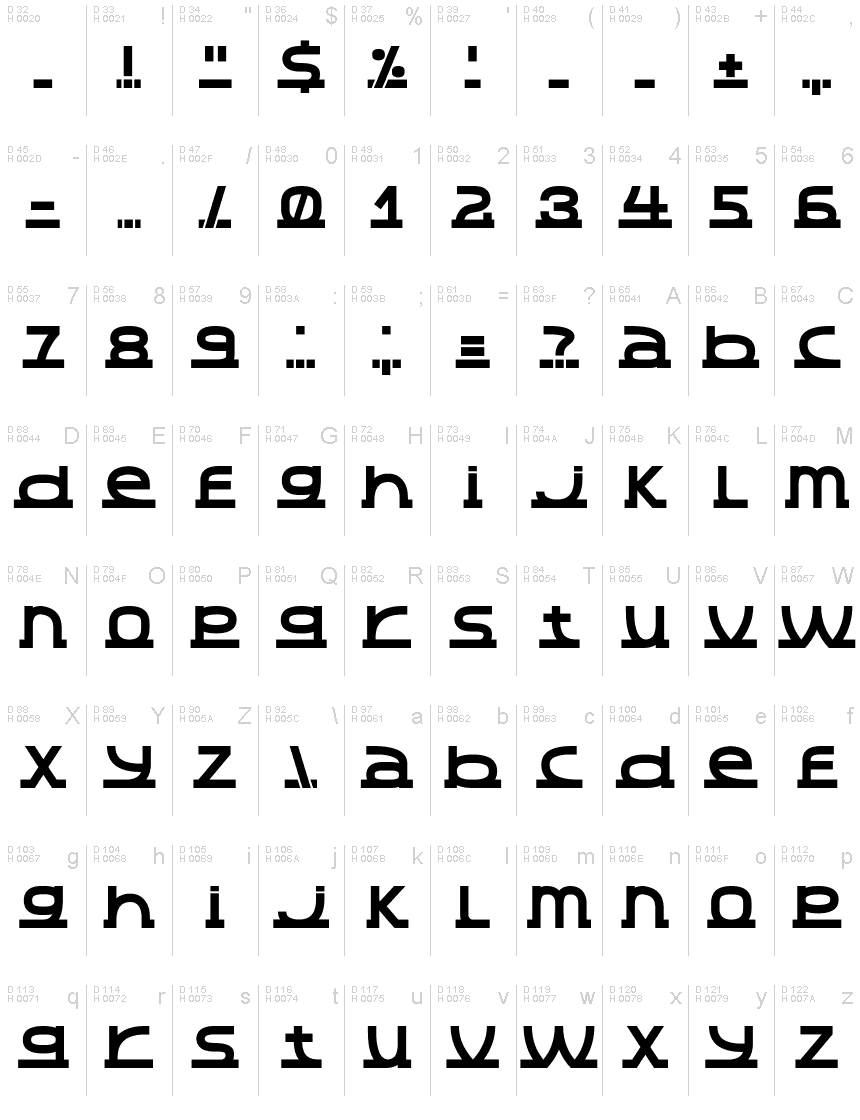
Unterschrift Regular
Introducing Unterschrift Regular, a wide display font designed by Vladimir Nikolic. Perfect for creating eye-catching posters and logos, Unterschrift Regular adds a bold, modern touch to any project.
"Unterschrift" comes in Regular, 3D and 3D Filled variant!